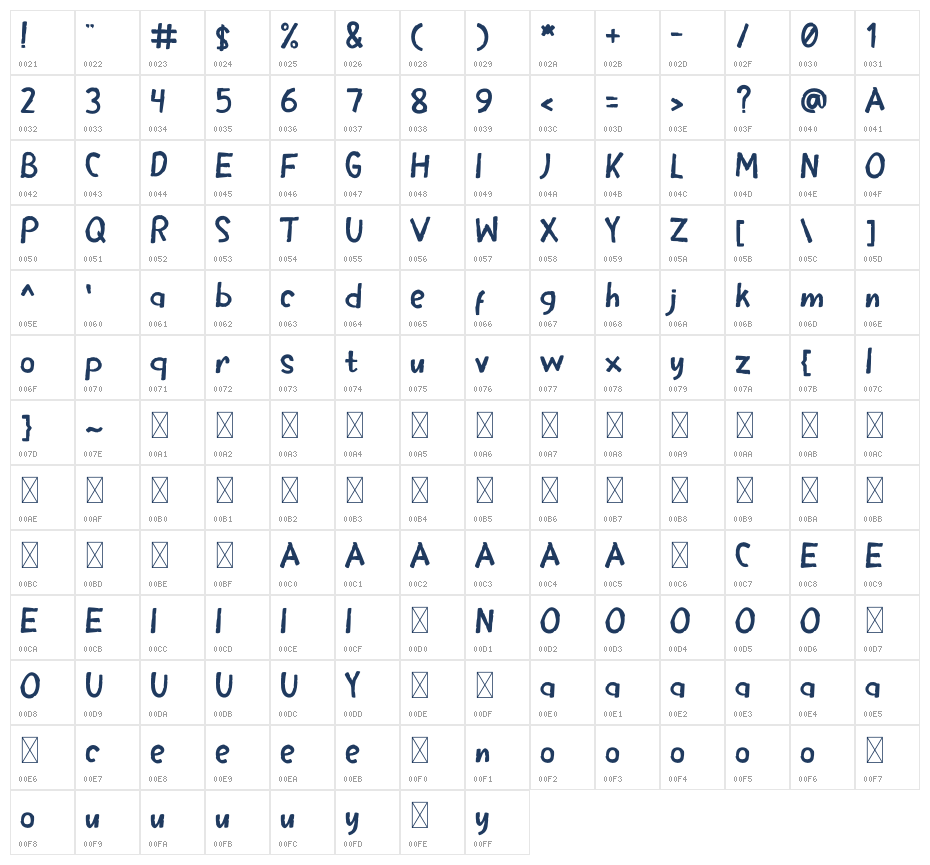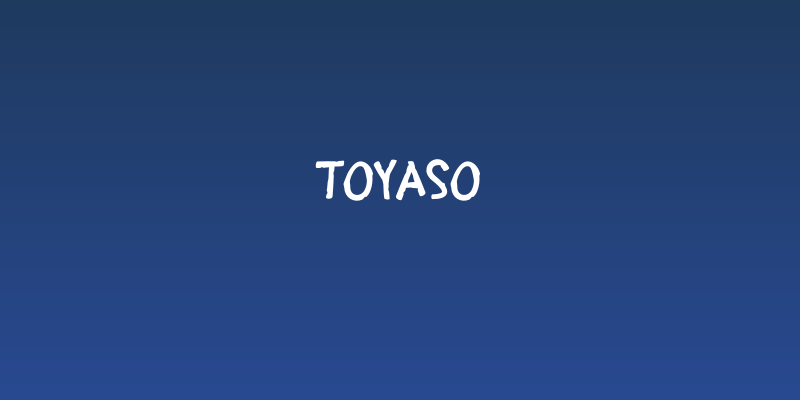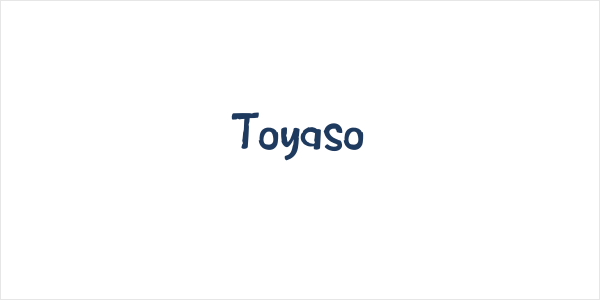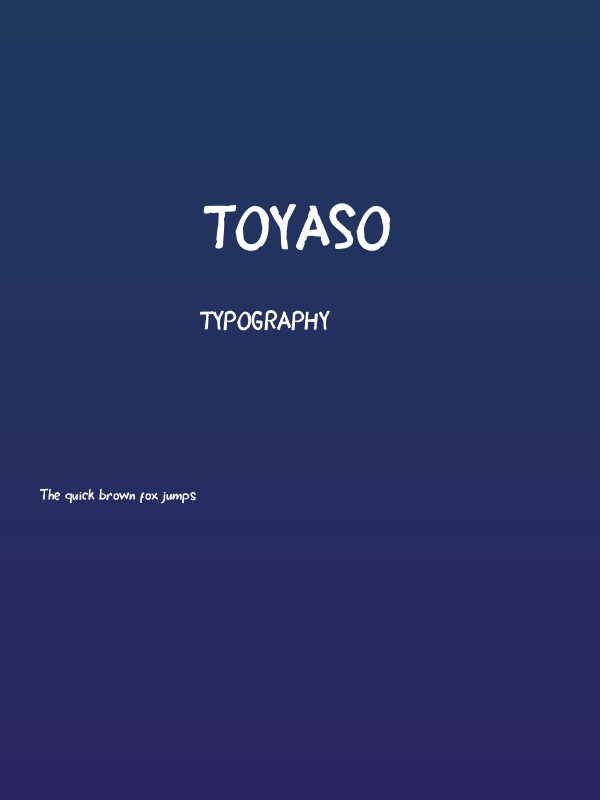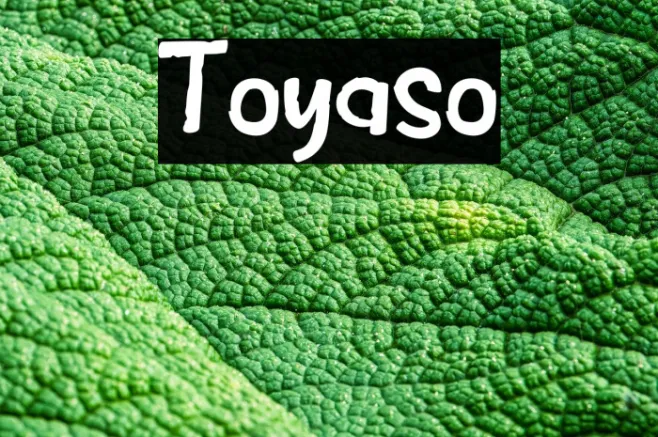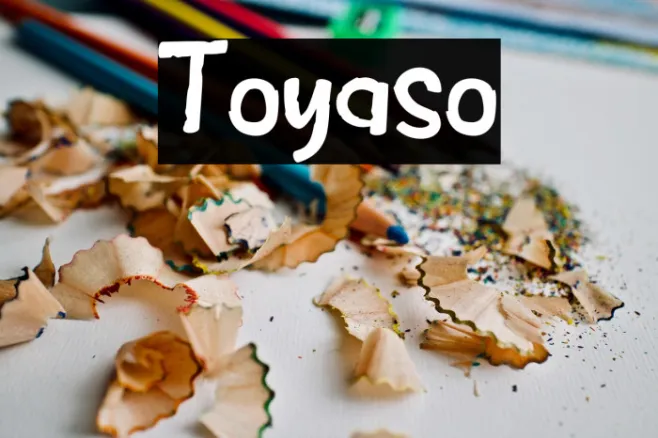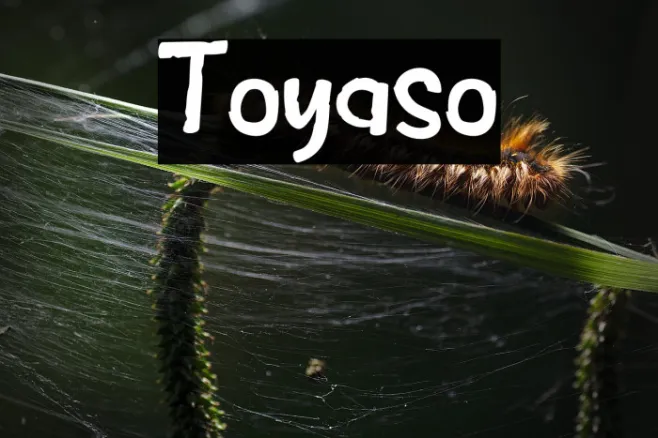
Toyaso Font
Toyaso Description
A playful, handwritten style font with irregular, casual strokes that resemble a child's handwriting.
| Use Case | Headlines, Children's books, Informal branding, Educational materials |